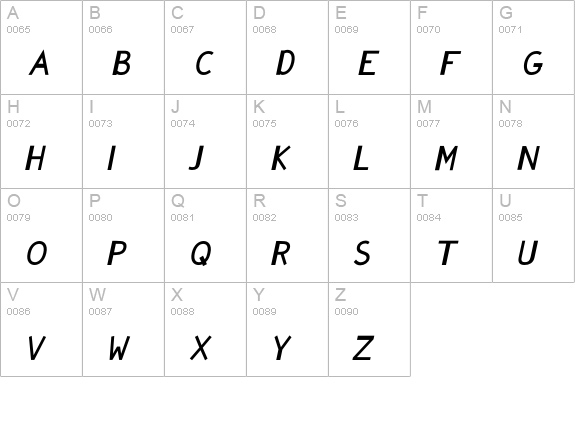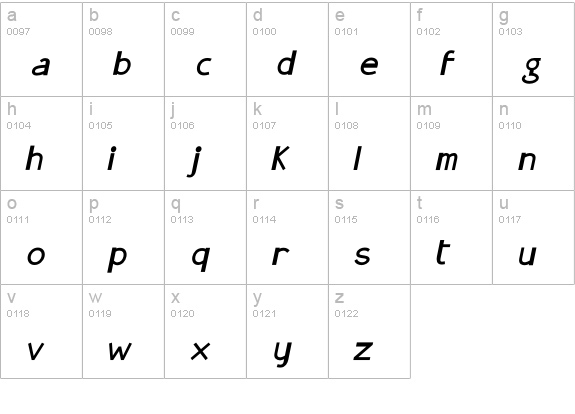
GonzaPlus-BoldOblique Font Details
GonzaPlus-BoldOblique font is a bold and dynamic typeface that exudes a sense of modernity and sophistication. Its sleek curves and slanted, italicized design add a touch of flair to any project, making it perfect for eye-catching headlines and attention-grabbing designs. This versatile font is free to use and is designed to make a statement in both print and digital mediums. Whether you're working on a branding project, editorial design, or web graphics, GonzaPlus-BoldOblique is sure to stand out and leave a lasting impression. You can easily download this unique font for free at FontsMarket.com, where you'll find a wide selection of high-quality fonts to enhance your creative projects. Don't miss out on the opportunity to elevate your designs with the bold and stylish GonzaPlus-BoldOblique font.